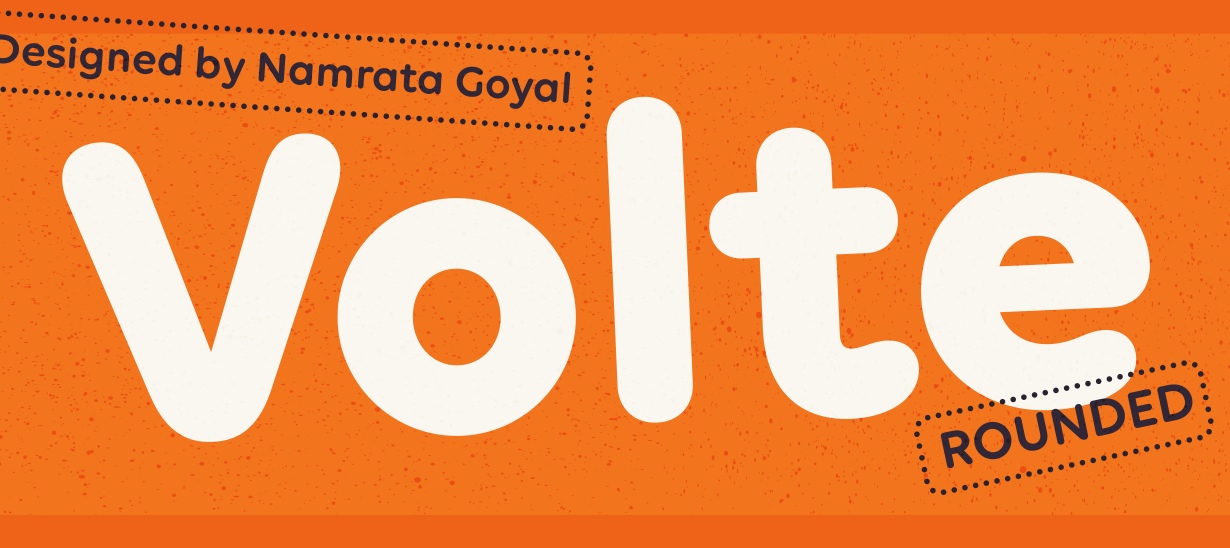
Volte Rounded Font
Volte Rounded Font is perfect for friendly tech branding, approachable startup identities, modern children's products, user-friendly interface design, contemporary educational materials, welcoming healthcare communications, accessible web typography, and warm advertising campaigns. This inviting typeface works exceptionally well in both digital applications and print media where accessibility and human-centered design are essential requirements.
What makes Volte Rounded Font so exciting is its perfect balance of technical precision and human warmth through softly rounded letterforms that eliminate harsh edges while maintaining professional clarity and contemporary sophistication. The font features gentle characters with approachable proportions, friendly curves, and welcoming details that create an atmosphere of accessibility and trust. Its warm personality and inclusive design make it ideal for brands seeking to establish genuine connections with diverse audiences while communicating innovation, reliability, and the human side of technology in an increasingly digital world.
The Volte Rounded Font family includes comprehensive weight variations from light to bold, along with matching italic styles and accessibility-focused alternates. Each style maintains the typeface's friendly character while offering extensive multilingual support, approachable numerals, welcoming punctuation marks, and special characters designed to enhance inclusive communications and human-centered branding efforts across global markets and diverse user communities.
The meticulously crafted rounded construction and optimized accessibility performance in Volte Rounded Font ensure maximum friendliness while maintaining professional clarity across all applications. Its welcoming presence makes it ideal for inclusive branding, user-friendly marketing materials, and accessible communications where its full rounded character can create lasting positive impressions and establish immediate association with warmth, accessibility, and thoughtful human-centered design.